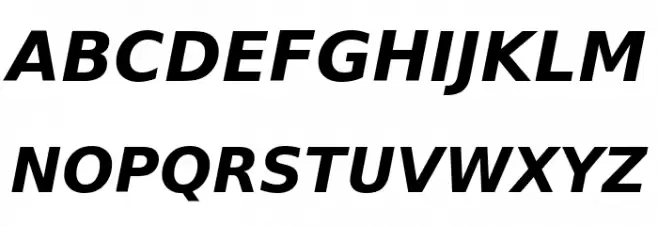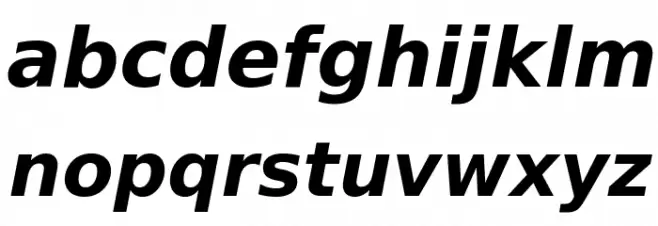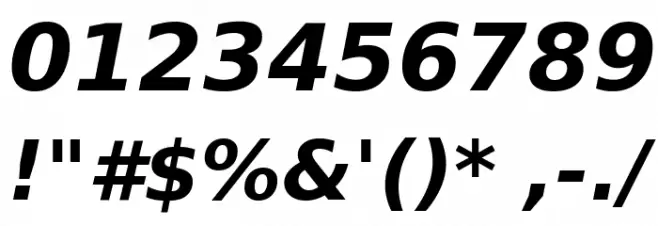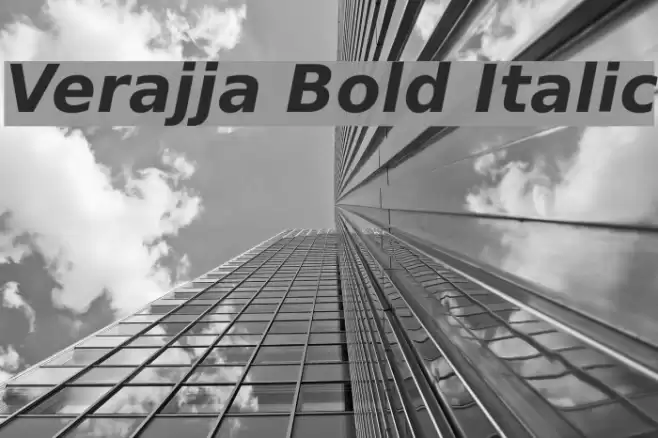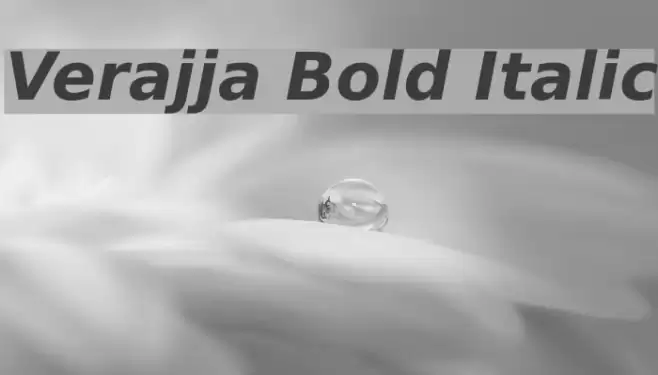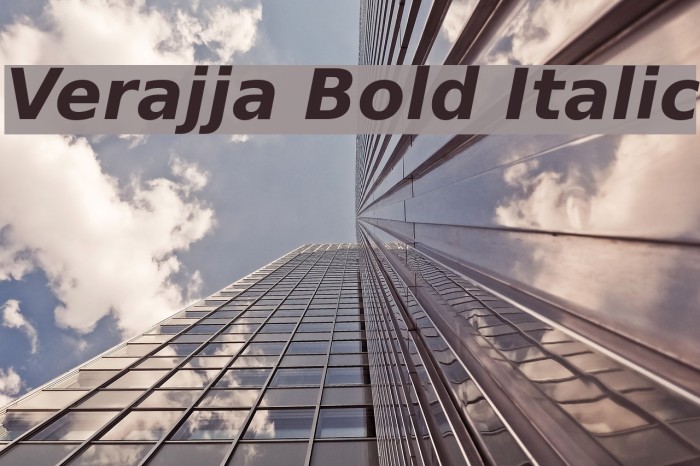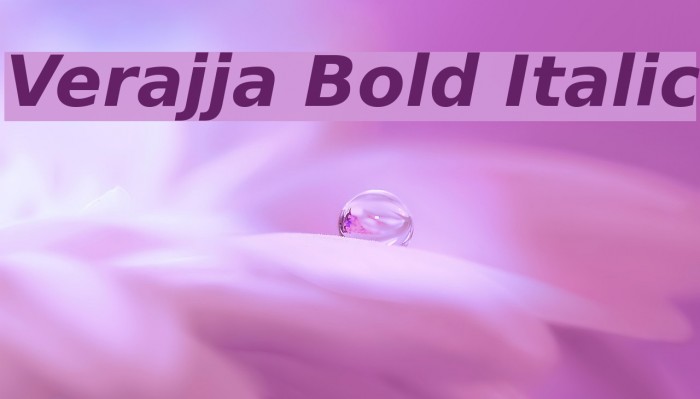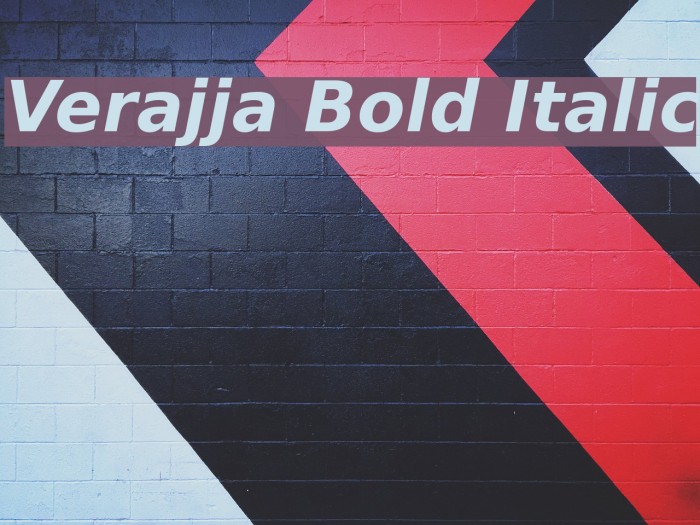
Verajja Bold Italic
This font features a bold and italicized style, characterized by its strong presence and dynamic slant. The uppercase and lowercase letters maintain a consistent weight, providing a uniform appearance across all characters. The numerals are clear and easily distinguishable, while the special characters are well-integrated, ensuring versatility in various applications. The font's boldness is complemented by its italic nature, adding a sense of movement and emphasis. Its modern design makes it suitable for contemporary projects, offering both readability and style.
A bold, italicized font with a modern and dynamic style.
- Proposed Projects: Ideal for branding, advertising, headlines, and digital media projects that require a strong and modern typeface.
- Use Case: Headlines, Logos, Advertising